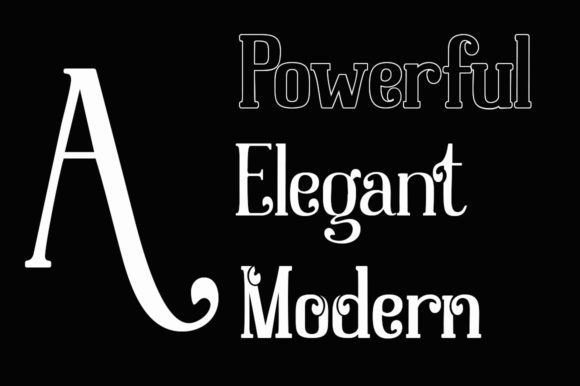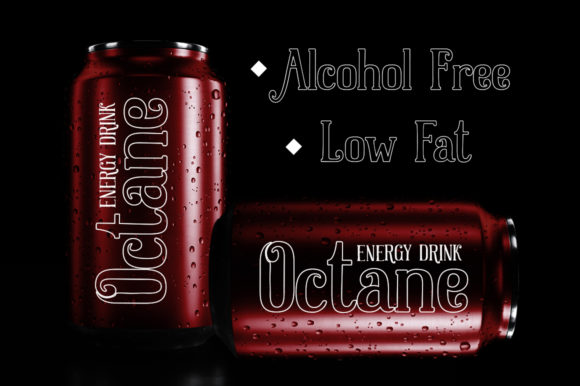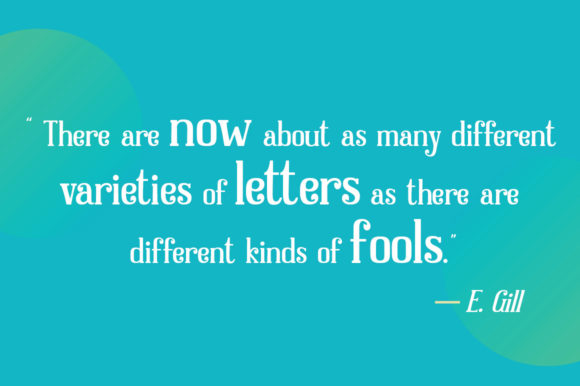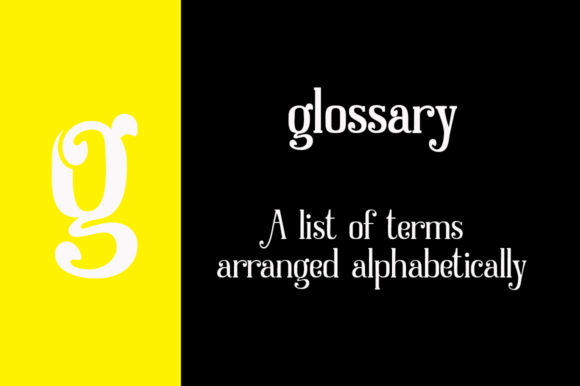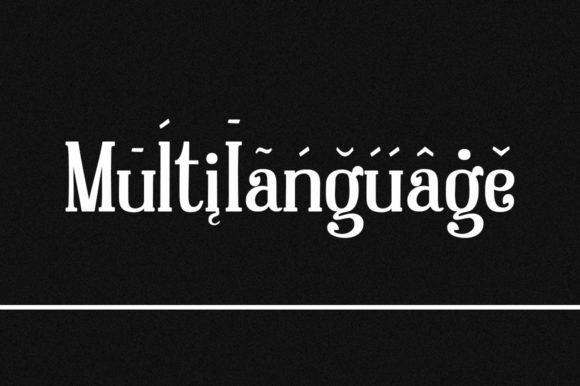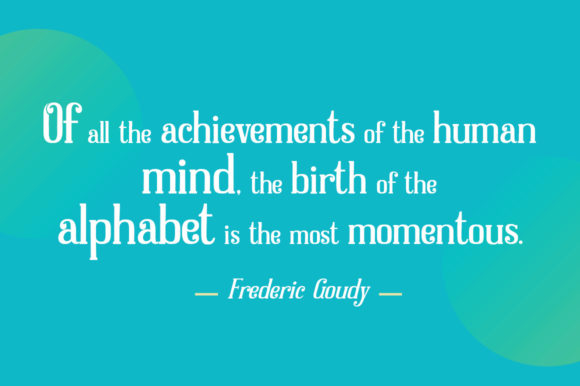
Dolphins Font: Elevate Your Designs with Elegance and Sophistication
Dolphins Font is an elegant and unique serif font that can add a touch of sophistication to any design project. Its versatility and distinctive style make it an excellent choice for designers and crafters looking to create visually stunning and memorable designs. In this article, we’ll explore the features and benefits of Dolphins Font, and how it can elevate your creative projects to new heights.
What is Dolphins Font?
Dolphins Font is a carefully crafted serif font that exudes elegance and refinement. Its unique design elements and precise typography make it an exceptional choice for a wide range of projects, from luxury branding and advertising to packaging and digital media. Whether you’re designing a logo, brochure, or website, Dolphins Font is sure to make your creations stand out from the crowd.
Key Features of Dolphins Font
- Elegant and Unique Design: Dolphins Font boasts a distinctive serif design that sets it apart from more traditional fonts. Its elegant lines and curves make it perfect for designs that require a touch of sophistication.
- Versatility: Dolphins Font can be used in a wide range of projects, from print materials like brochures and posters to digital media like websites and social media graphics.
- Highly Legible: Despite its elegant design, Dolphins Font remains highly legible, making it suitable for body text and captions.
- Customizable: Dolphins Font can be easily customized to fit your brand’s style and tone, making it an excellent choice for branding and advertising projects.
Benefits of Using Dolphins Font
So, why choose Dolphins Font for your design projects? Here are just a few benefits of using this exceptional font:
- Adds Sophistication and Elegance: Dolphins Font can instantly elevate your designs and add a touch of sophistication and refinement.
- Enhances Brand Identity: With its unique design elements, Dolphins Font can help you create a distinctive brand identity that sets you apart from your competitors.
- Increases Readability: Dolphins Font’s high legibility makes it perfect for designs that require a lot of text, such as brochures, magazines, and websites.
- Versatile and Adaptable: Dolphins Font can be used in a wide range of projects, making it an excellent addition to any designer’s font library.
How to Use Dolphins Font in Your Designs
- Pair it with Other Fonts: Dolphins Font pairs well with a variety of fonts, from sans-serif fonts like Arial and Helvetica to script fonts like Pacifico and Great Vibes.
- Experiment with Font Sizes: Dolphins Font looks great in a variety of font sizes, from large headings to smaller body text.
- Use it for Headings and Titles: Dolphins Font is perfect for headings and titles, where its elegant design can really shine.
Dolphins Font is an exceptional serif font that can add a touch of elegance and sophistication to any design project. Its versatility, unique design elements, and high legibility make it an excellent choice for designers and crafters looking to create visually stunning and memorable designs. Whether you’re designing a logo, brochure, or website, Dolphins Font is sure to make your creations stand out from the crowd. So why wait? Add Dolphins Font to your creative toolkit today and see how it can elevate your designs to new heights!
- What type of font is Dolphins Font?: Dolphins Font is a serif font.
- Is Dolphins Font suitable for body text?: Yes, Dolphins Font is highly legible and suitable for body text.
- Can I customize Dolphins Font?: Yes, Dolphins Font can be easily customized to fit your brand’s style and tone.